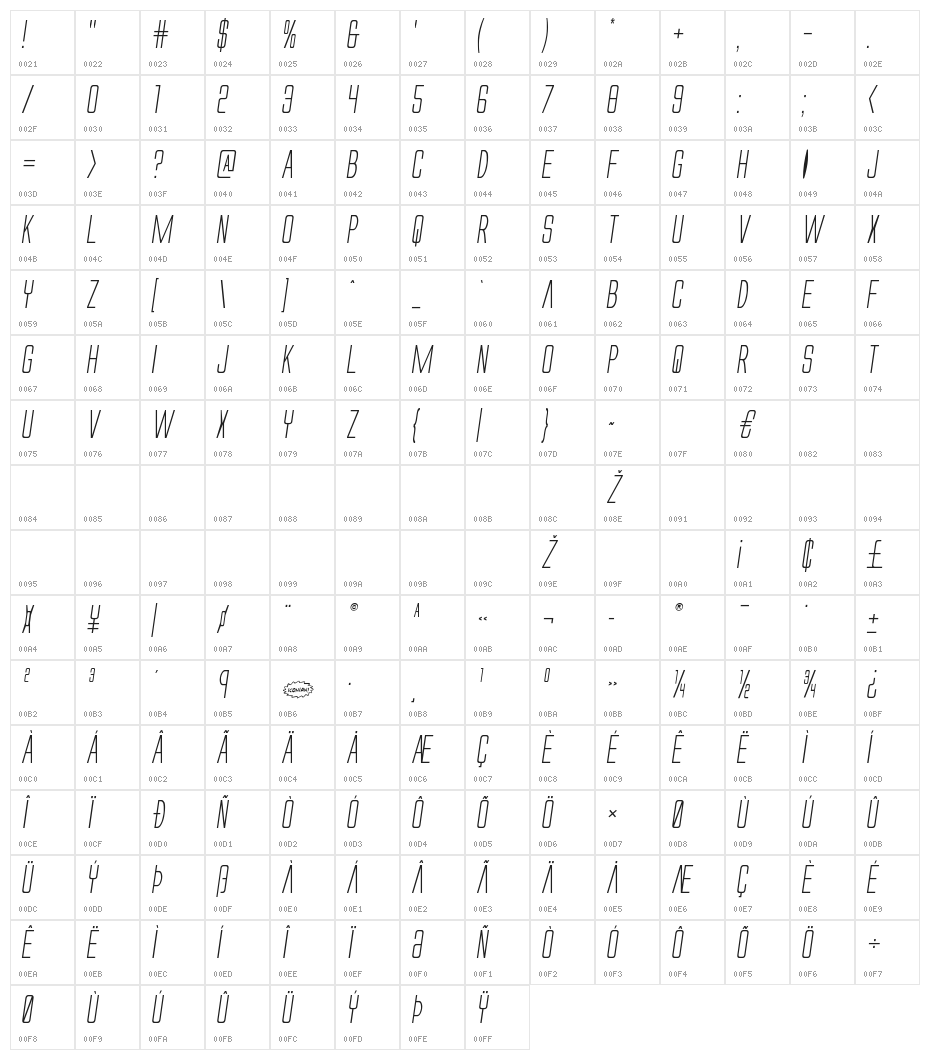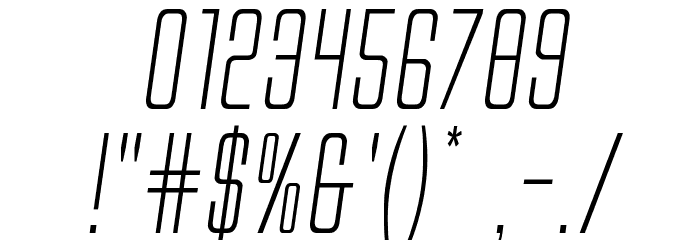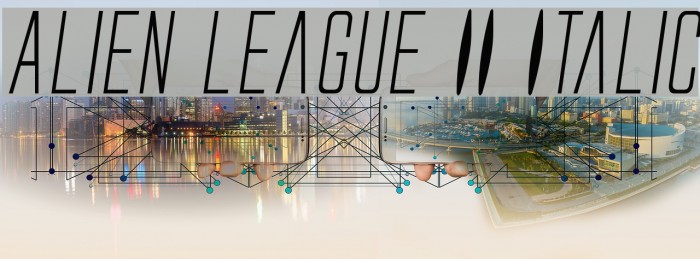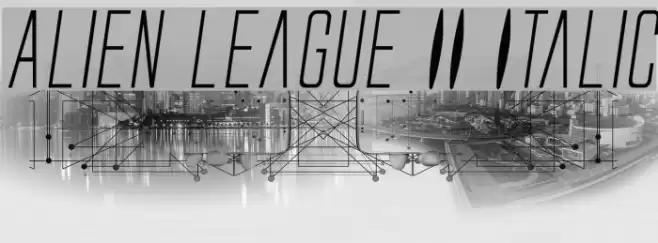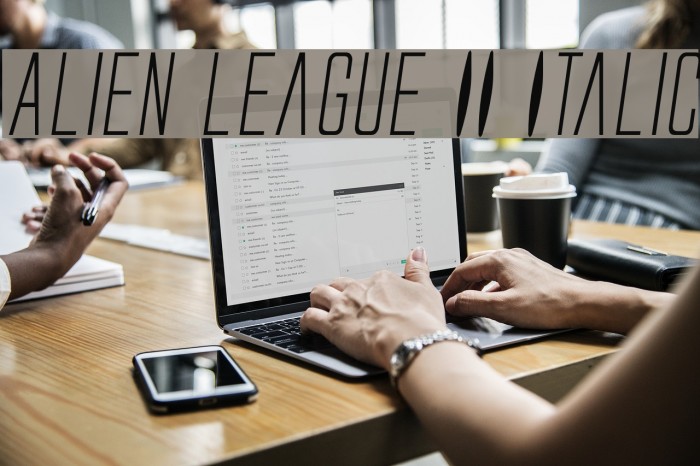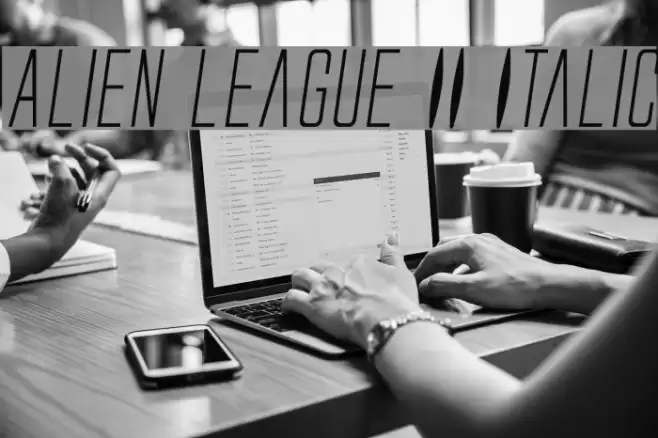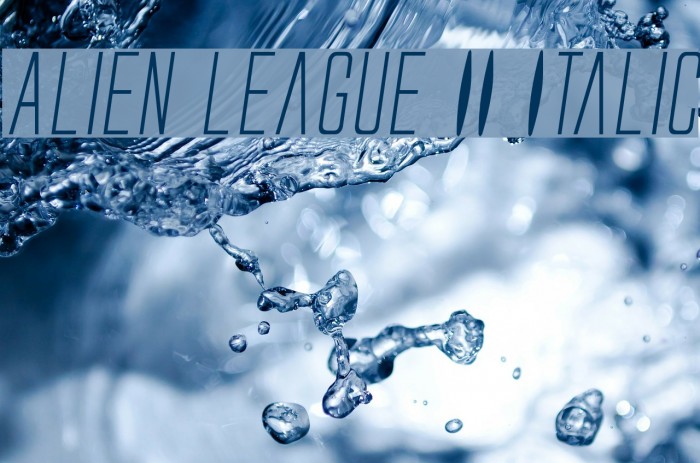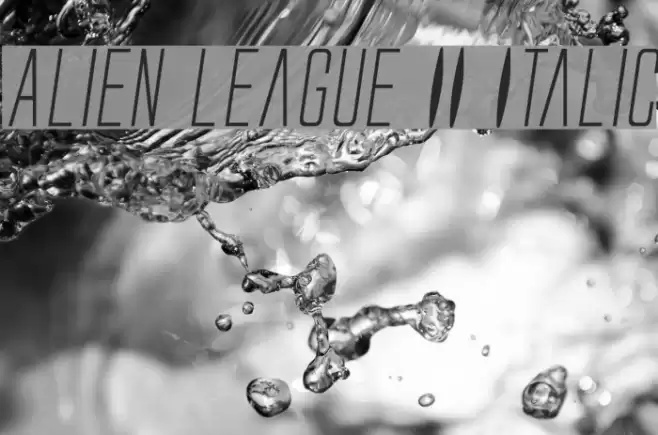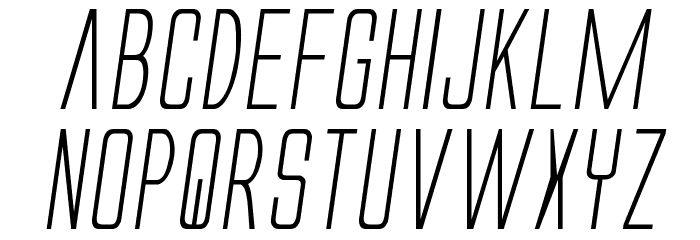
Alien League II Italic Font
Alien League II Italic Description
This font features a futuristic and sleek design, characterized by its elongated and narrow letterforms. The italic style adds a dynamic and forward-leaning appearance, enhancing its modern aesthetic. The characters are uniformly tall with consistent stroke widths, giving it a streamlined and cohesive look. The uppercase and lowercase letters maintain a consistent style, with slight variations in the lowercase set to ensure readability. The numerals and special characters are designed to match the overall theme, providing a complete and versatile typeface suitable for various applications.
| Proposed Projects | Ideal for sci-fi themed projects, technology branding, video game titles, and modern advertising campaigns. |